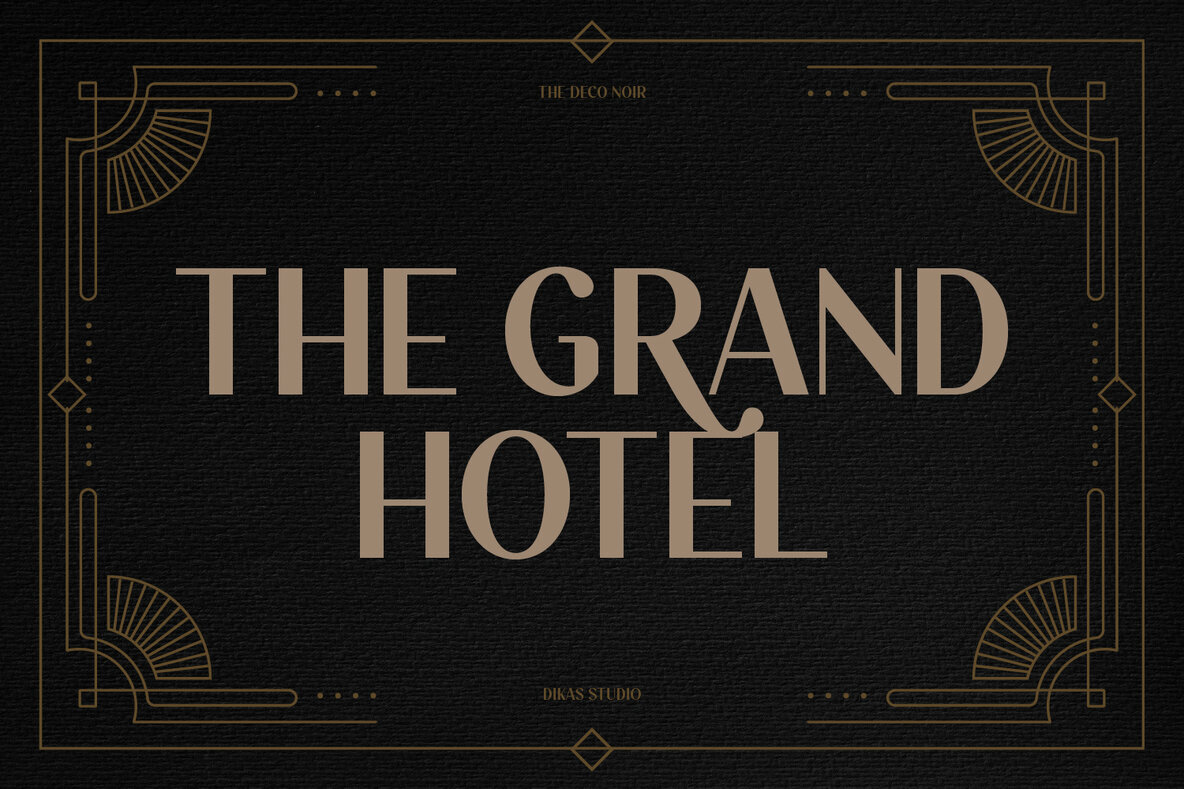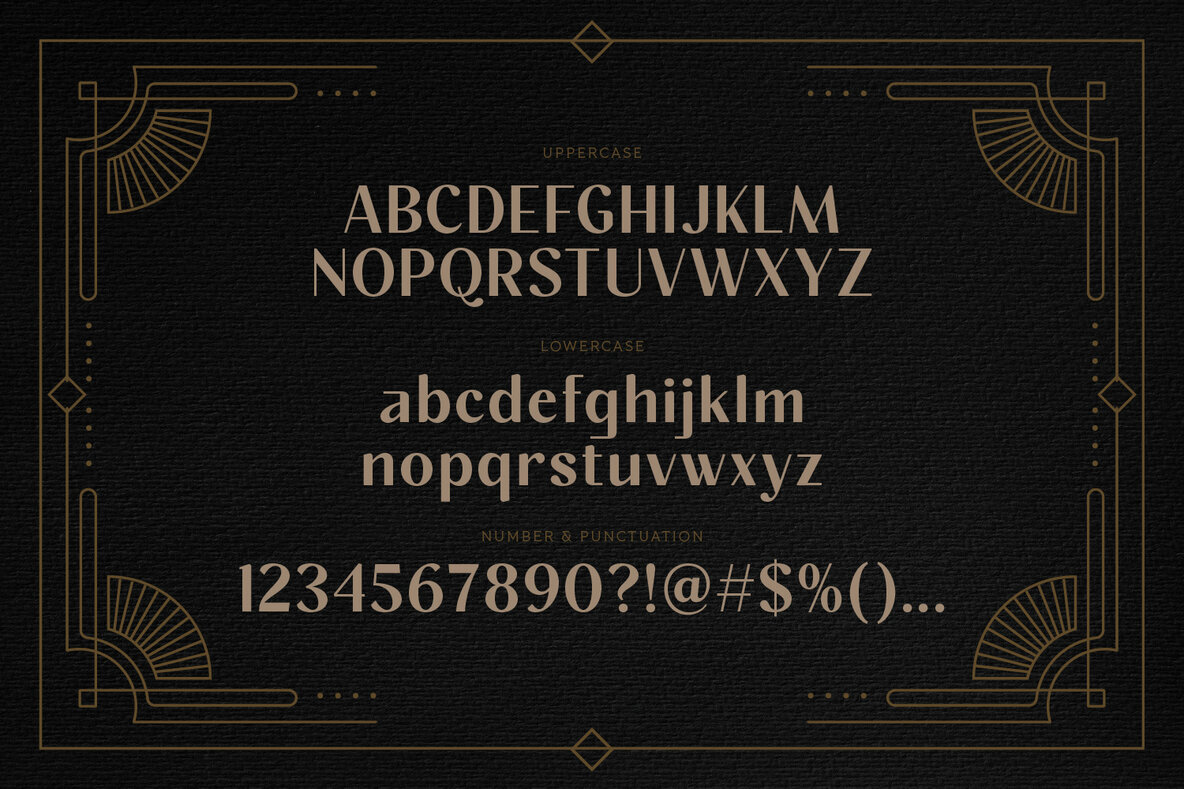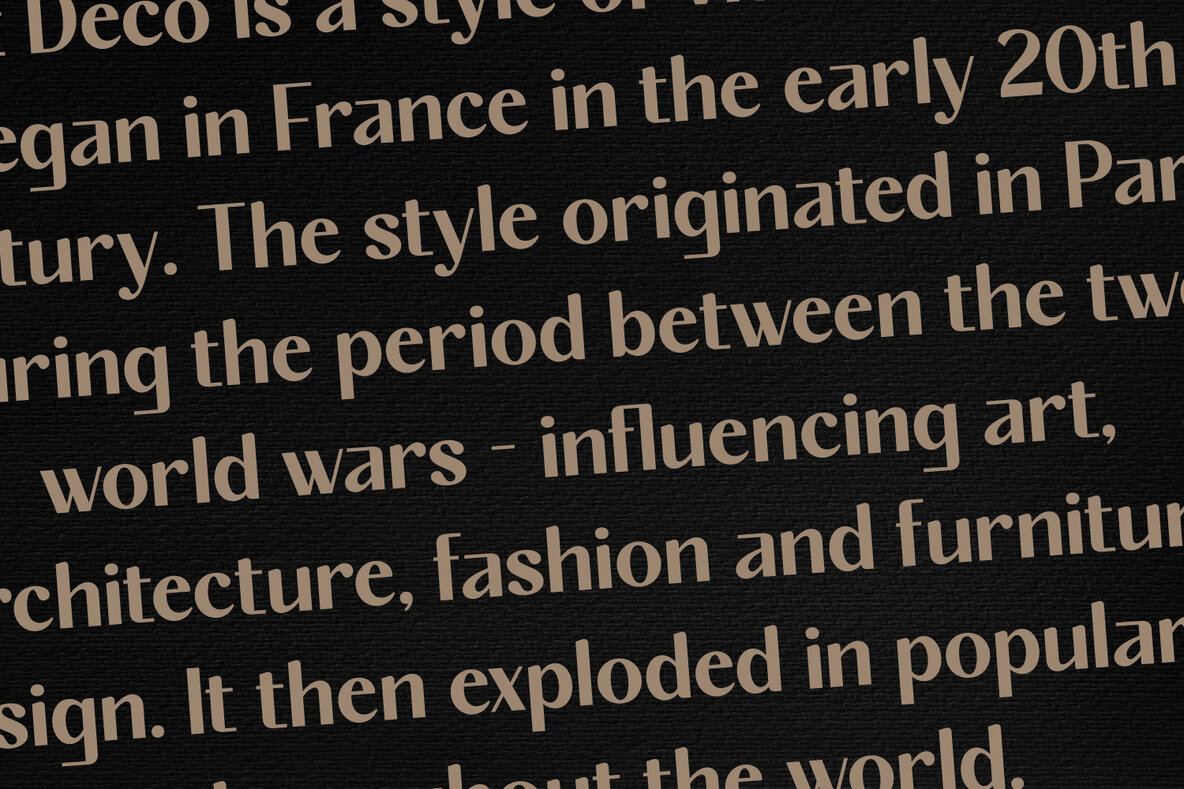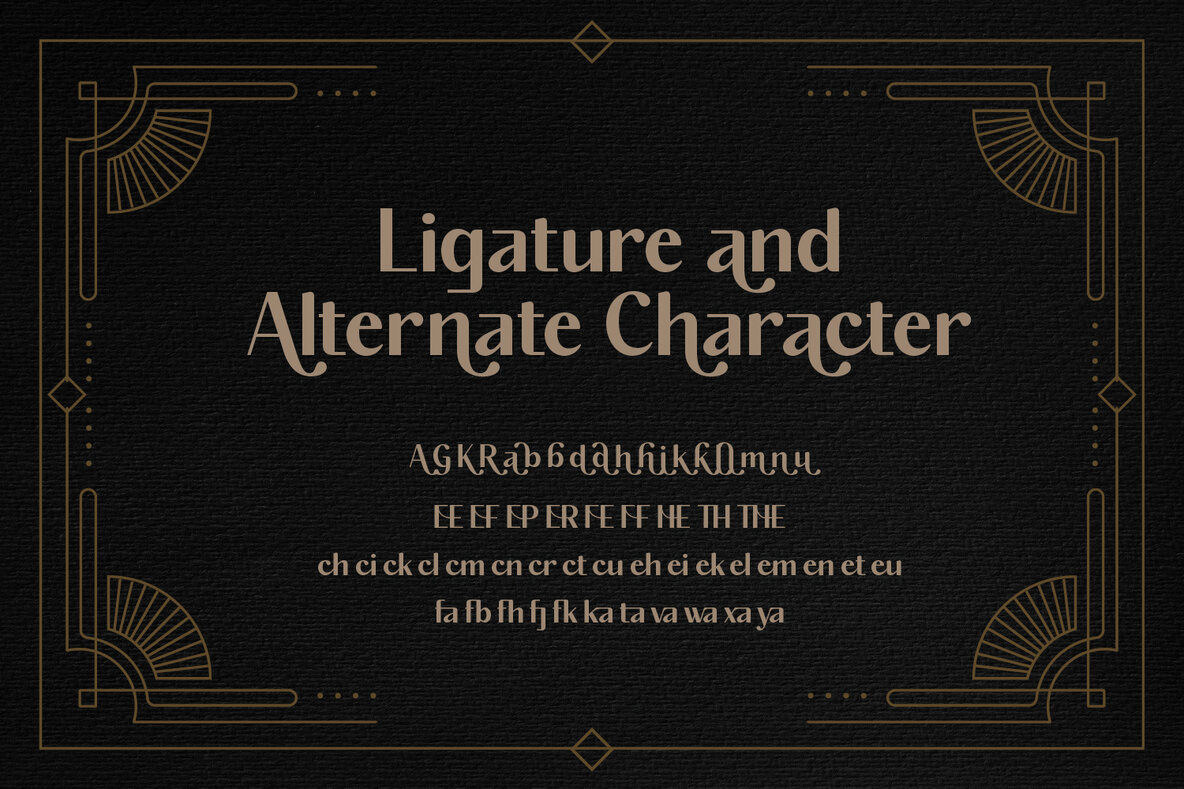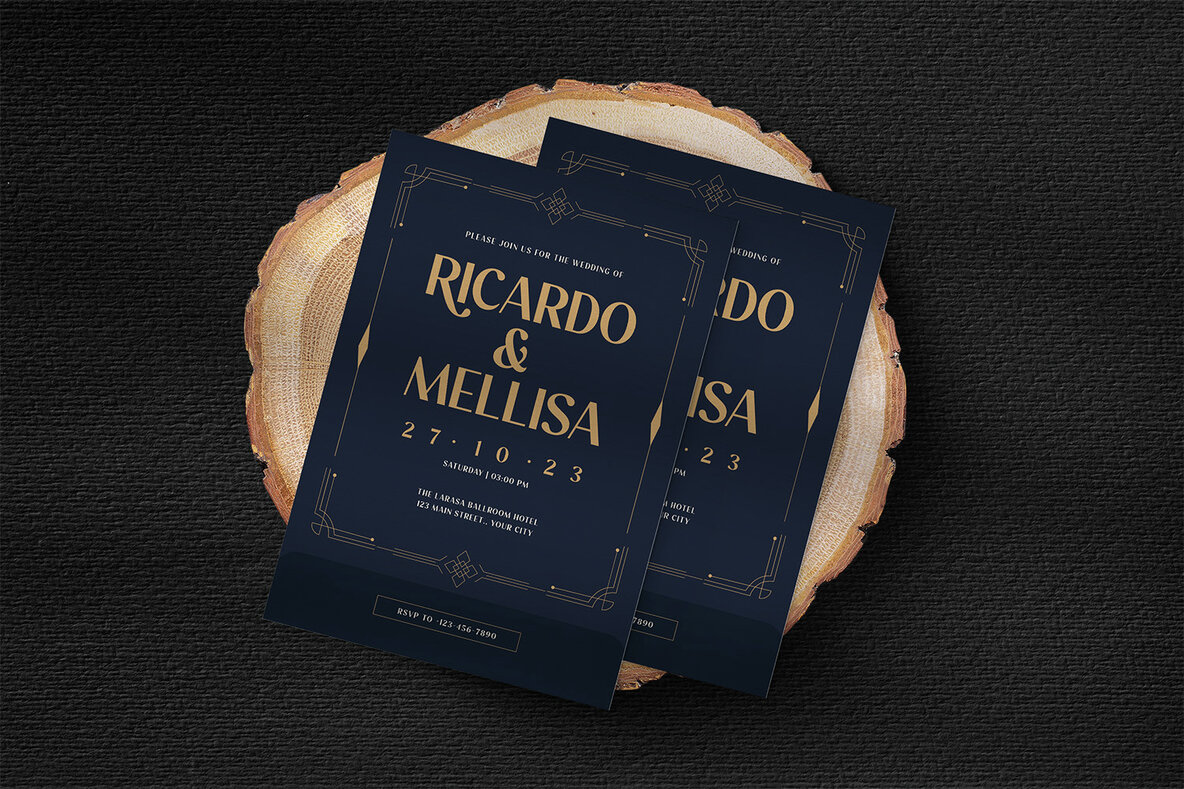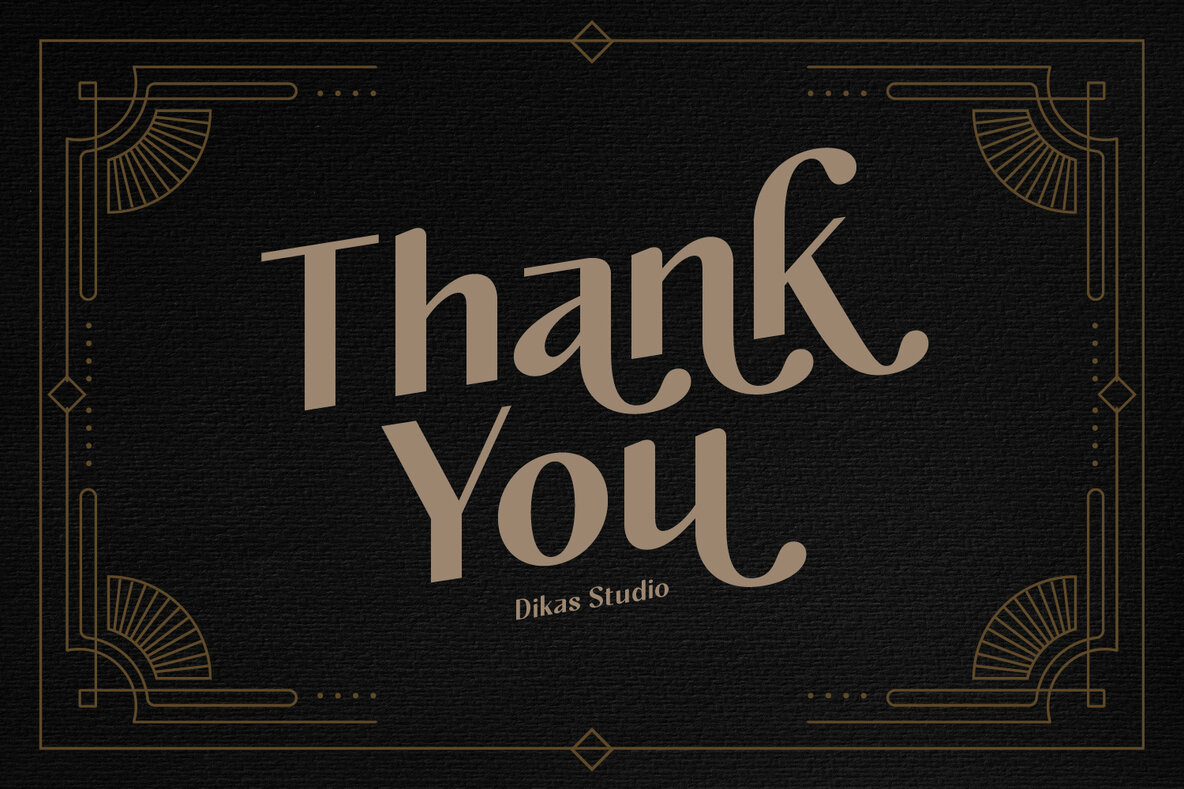
The Deco Noir is a sophisticated sans-serif font with a touch of classic Art Deco elegance. Its refined design makes it perfect for vintage, fashion, and Art Deco-themed projects. Whether you’re creating luxurious branding, stylish posters, or elegant invitations, The Deco Noir adds a timeless, glamorous touch to your work